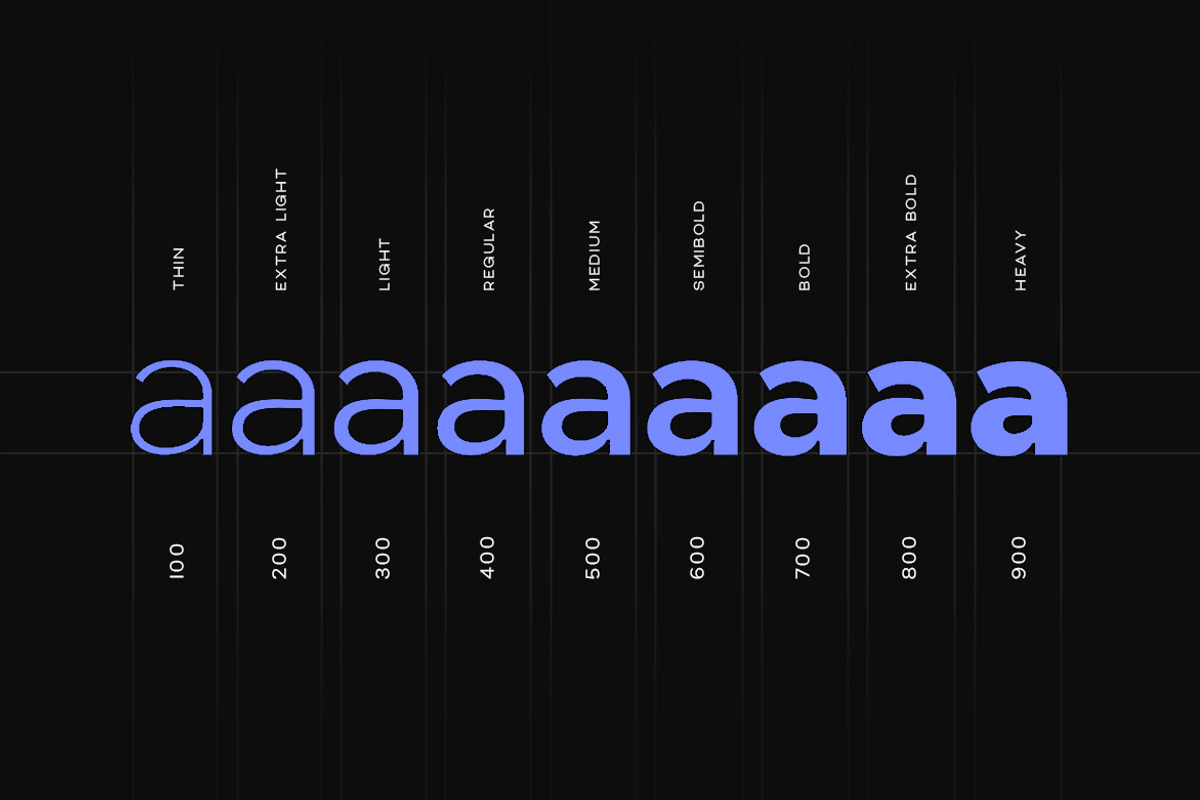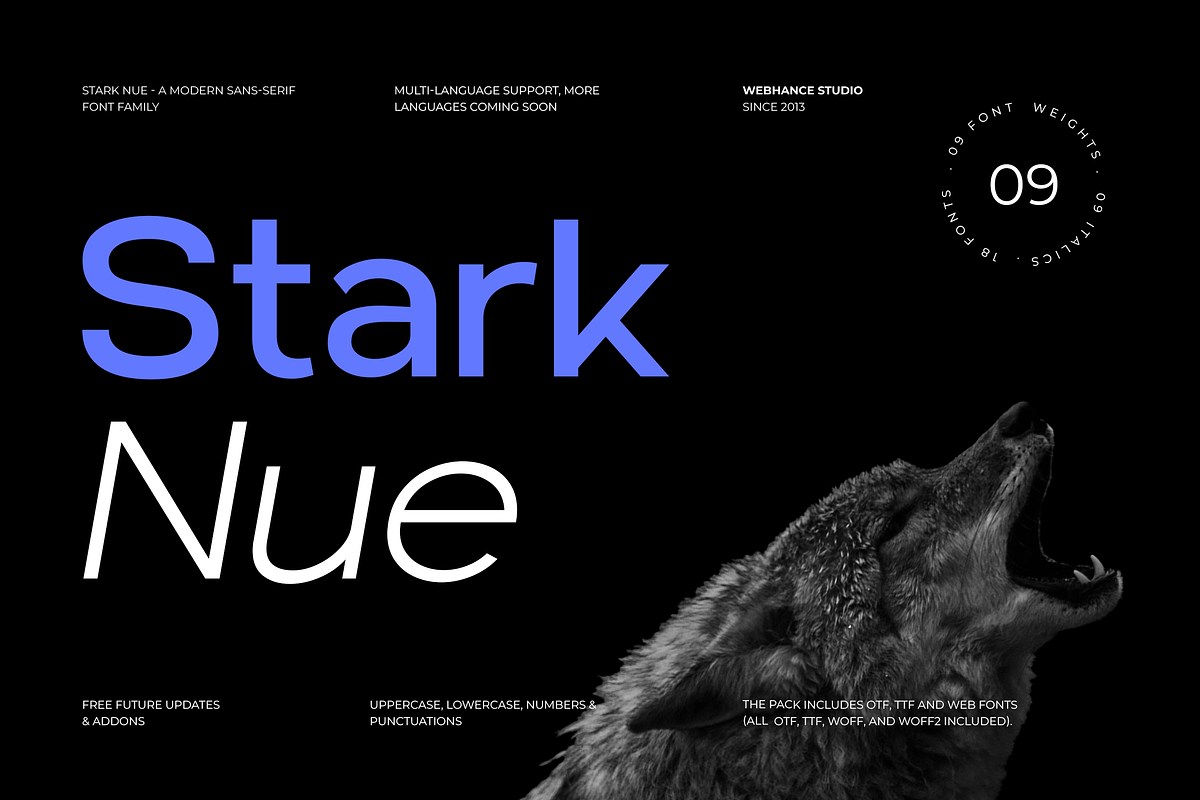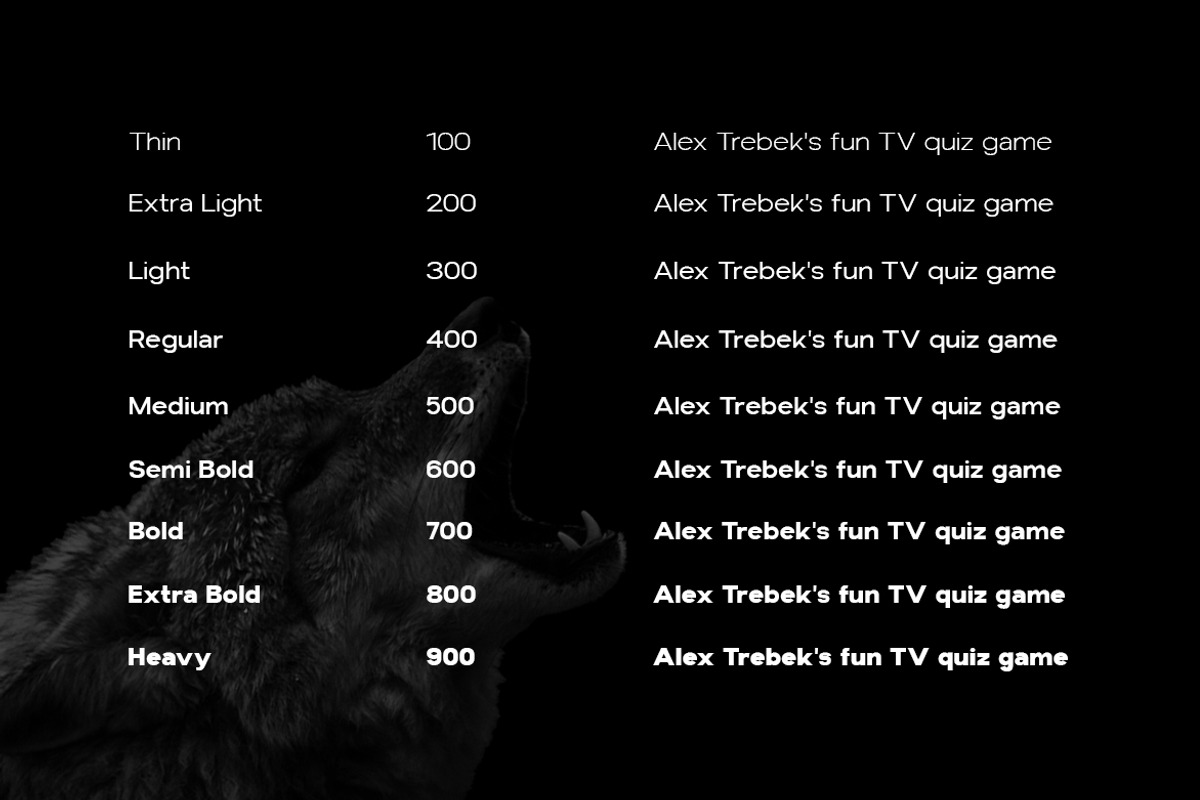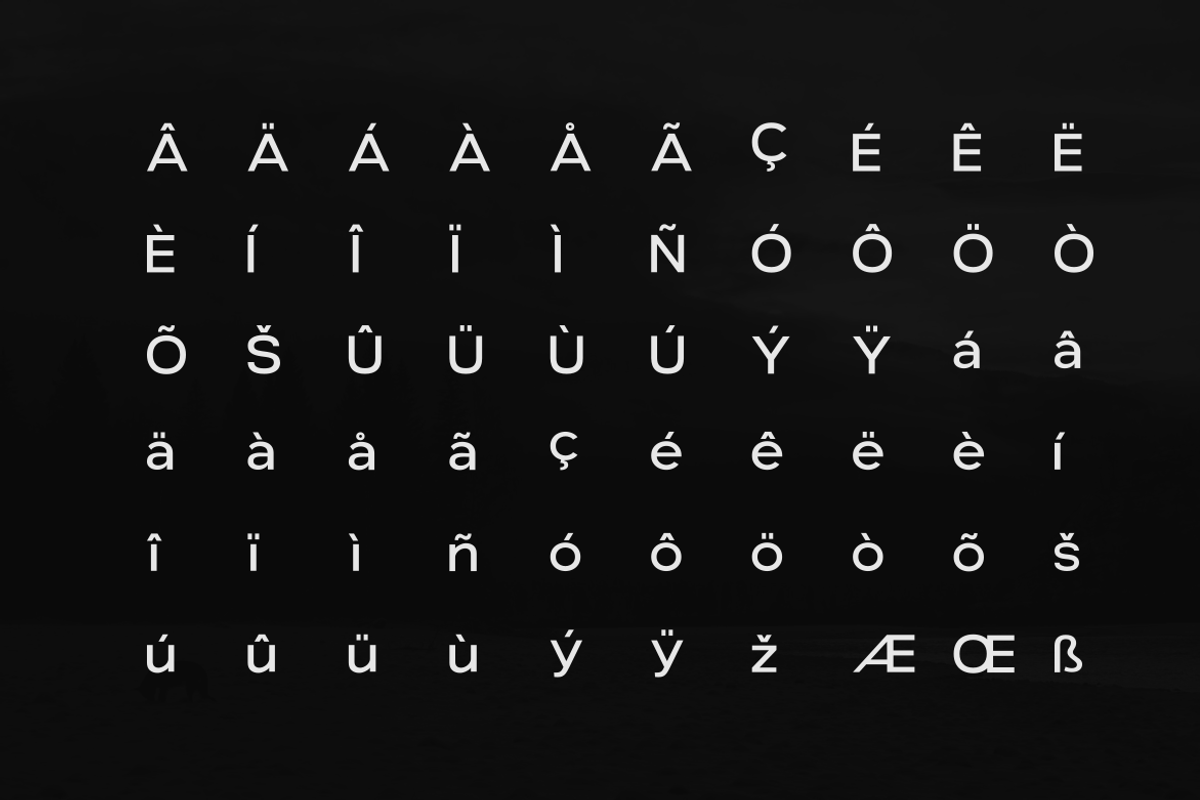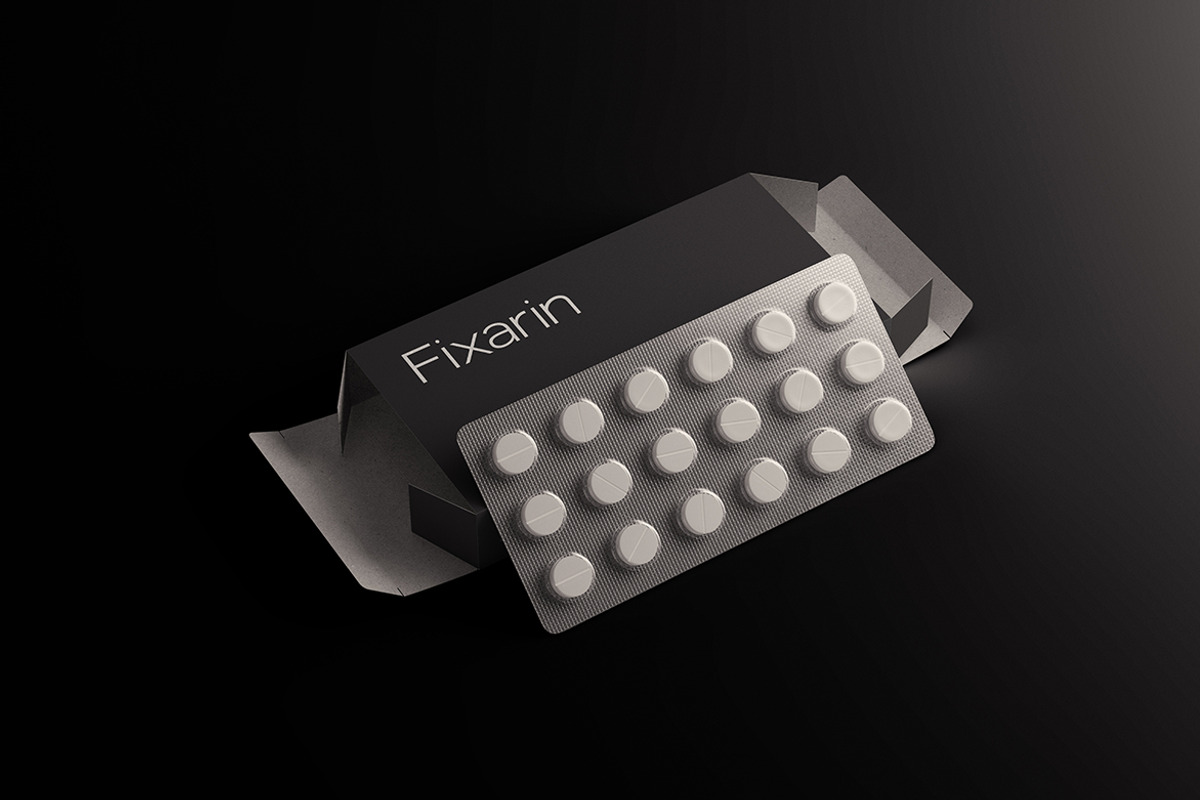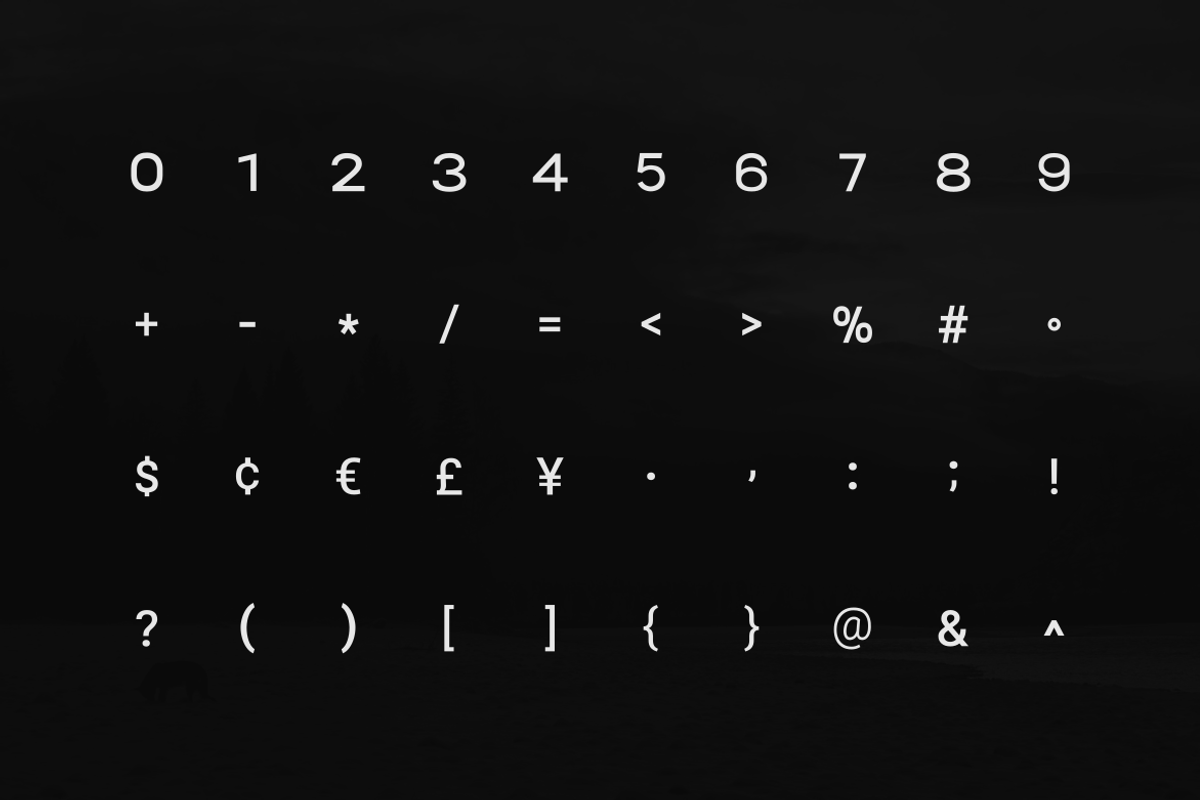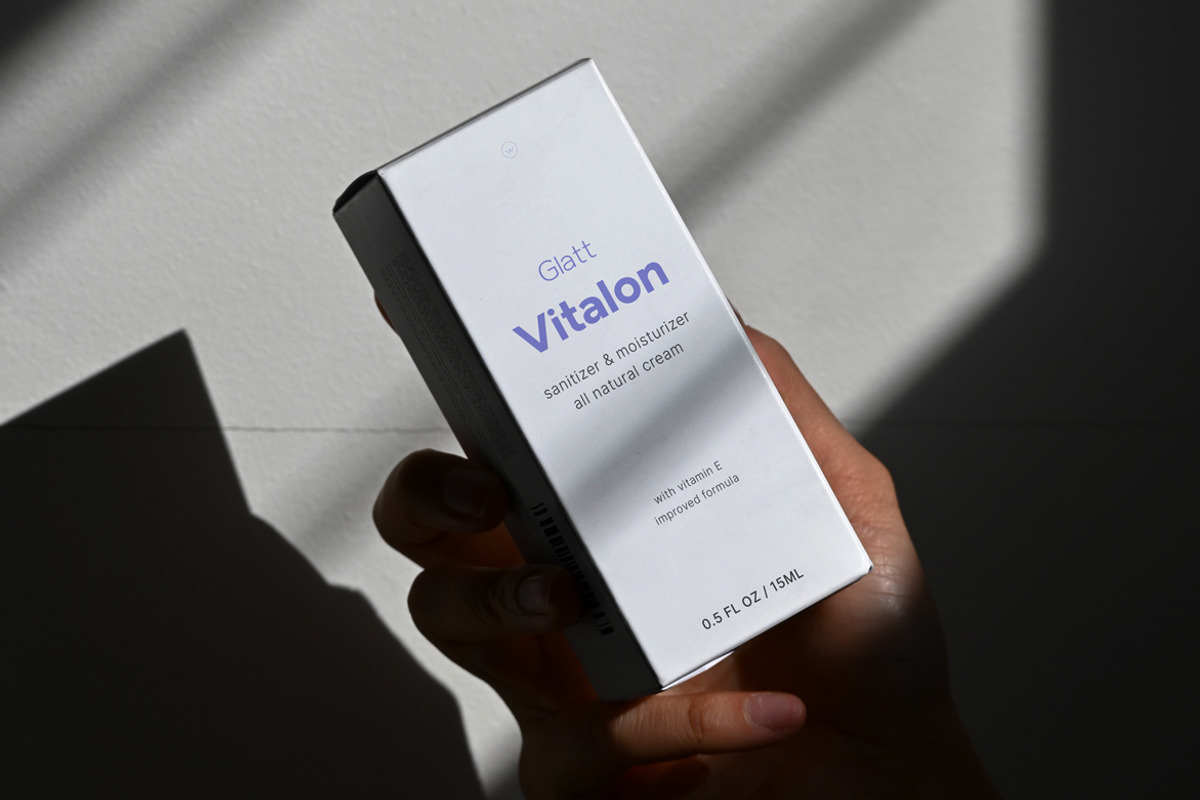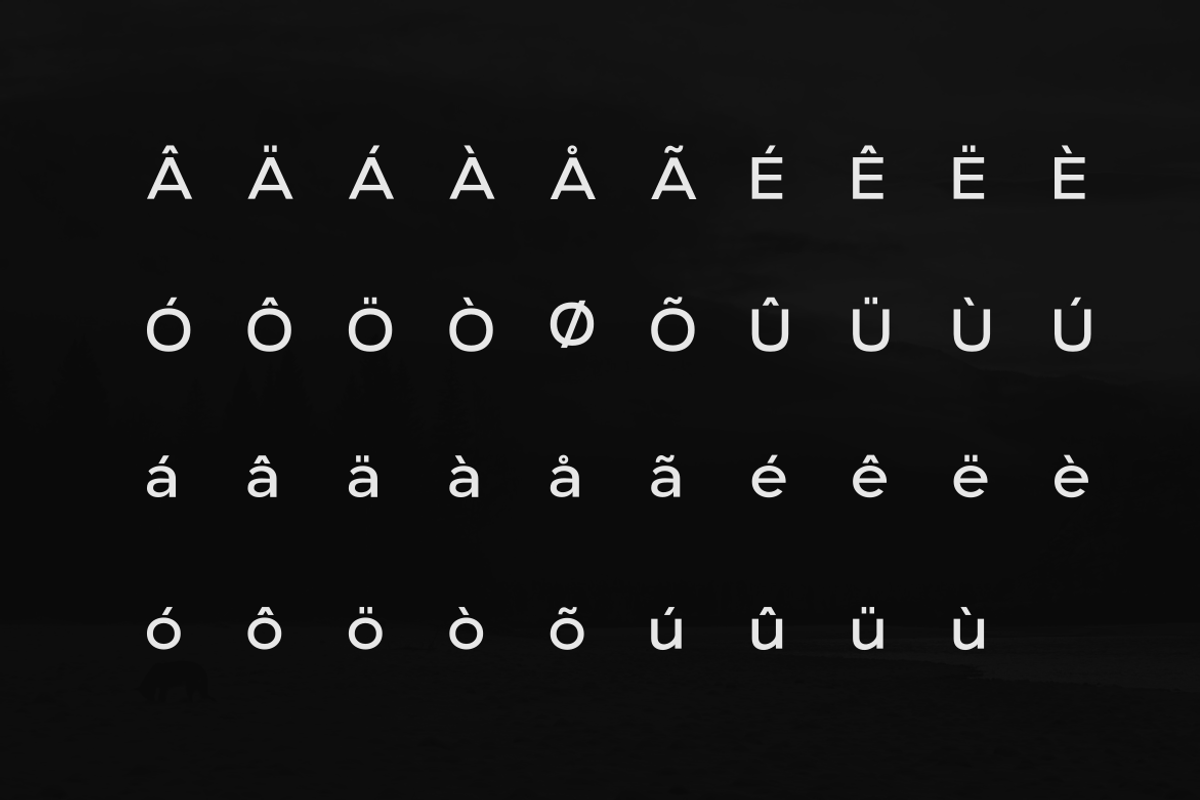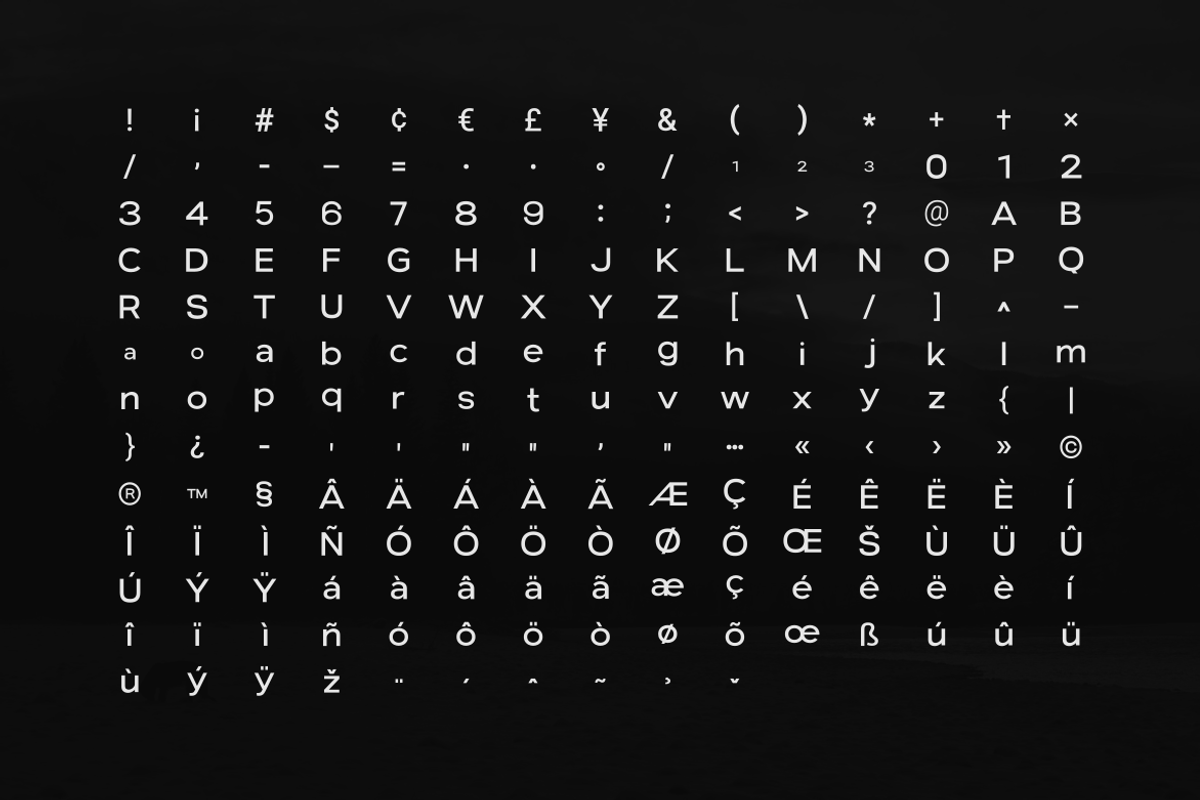
Stark Nue - a Premium Sans-serif
Stark Nue - A premium sans-serif font family
Introducing Stark Nue, a modern sans-serif font family designed with clarity, balance, and precision in mind. Built around a clean and minimalist style, Stark Nue is made to work across a wide range of design needs.
The family includes 9 carefully crafted weights, from Thin to Heavy, along with matching italics, giving you 18 fonts in total. Each weight is drawn to stay consistent in shape and spacing, making it easy to use across different layouts.
Stark Nue is well suited for branding, logo design, websites, posters, Instagram content, social media graphics, reel text, video infographics, YouTube thumbnails, and more. Every style is optimized for both print and digital use, ensuring clear readability and a consistent look on all platforms.
- Multilingual Font
- Uppercase letters
- Lowercase letters
- 09 Weights
- 09 Italics
- 18 Fonts Included
- 200+ Glyphs